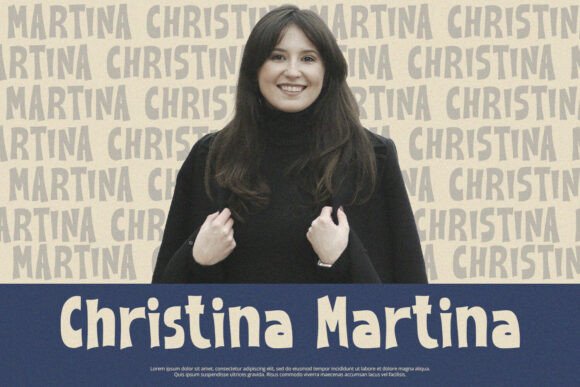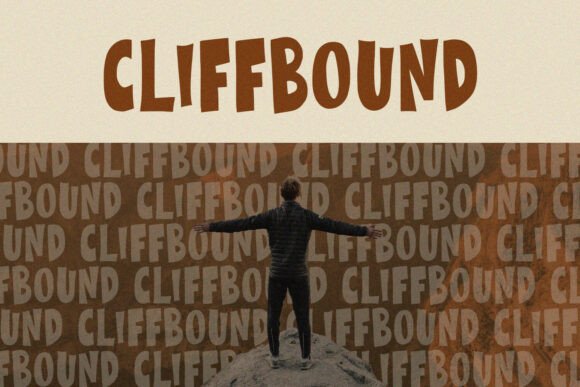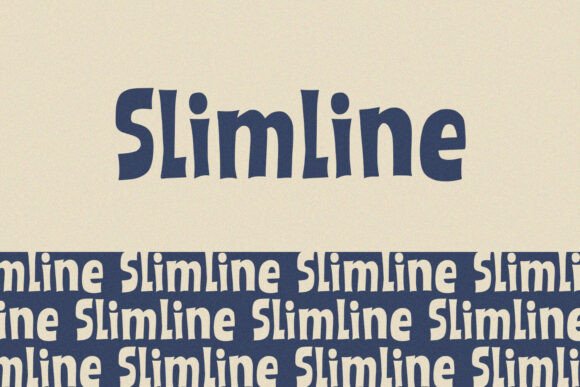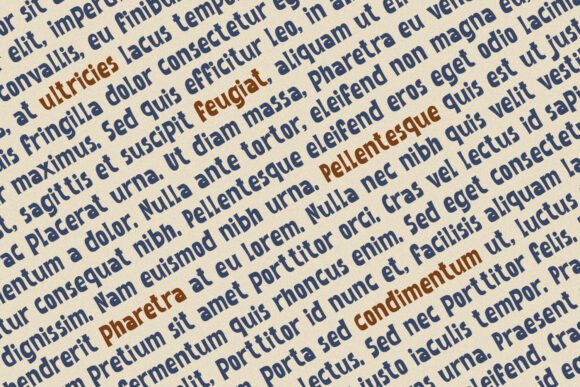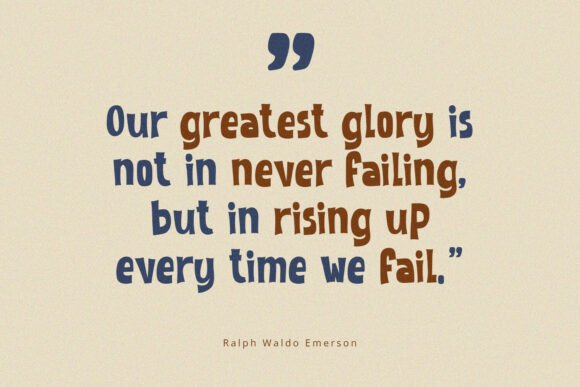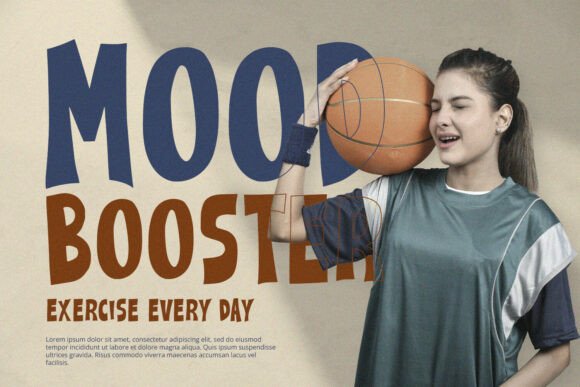
Burnout Paradise Font: The Ultimate Display Font for Creative Projects
Are you a designer or crafter looking for a bold and playful font to elevate your creative projects? Look no further than the Burnout Paradise Font! This stunning display font is perfect for adding a touch of fun and whimsy to a wide range of design projects, from magazines and packaging to posters, shopping bags, and more.
What is Burnout Paradise Font?
Burnout Paradise Font is a bold display font that exudes a cute and playful feel. Its unique design makes it perfect for grabbing attention and adding a touch of personality to any design project. The font’s bold and chunky letters are sure to make a statement, while its playful curves and lines add a touch of whimsy and fun.
Characteristics of Burnout Paradise Font
So, what makes Burnout Paradise Font so special? Here are just a few of its key characteristics:
- Bold and playful: Burnout Paradise Font is a bold display font that’s perfect for making a statement.
- Cute and fun: The font’s playful curves and lines give it a cute and fun feel that’s perfect for a wide range of design projects.
- Highly versatile: Burnout Paradise Font can be used for everything from magazines and packaging to posters, shopping bags, and more.
- Easy to read: Despite its bold and playful design, Burnout Paradise Font is easy to read, even at smaller sizes.
Uses for Burnout Paradise Font
So, what can you use Burnout Paradise Font for? The possibilities are endless! Here are just a few ideas to get you started:
- Magazines and publications: Add a touch of fun and personality to your magazine or publication with Burnout Paradise Font.
- Packaging design: Use Burnout Paradise Font to add a playful touch to your product packaging.
- Posters and flyers: Create eye-catching posters and flyers with Burnout Paradise Font.
- Shopping bags: Add a touch of personality to your shopping bags with Burnout Paradise Font.
- T-shirts and apparel: Use Burnout Paradise Font to create fun and playful designs for t-shirts and other apparel.
- Book covers: Add a touch of whimsy to your book covers with Burnout Paradise Font.
- Photography: Use Burnout Paradise Font to add a playful touch to your photography projects.
- Special events: Create custom designs for special events, such as weddings, parties, and more, with Burnout Paradise Font.
Tips for Using Burnout Paradise Font
Here are a few tips for getting the most out of Burnout Paradise Font:
- Use it boldly: Burnout Paradise Font is a bold display font, so don’t be afraid to use it boldly and make a statement.
- Experiment with colors: Burnout Paradise Font looks great in a wide range of colors, so don’t be afraid to experiment and find the perfect color for your design.
- Pair it with other fonts: Burnout Paradise Font pairs well with a wide range of other fonts, so feel free to get creative and experiment with different font combinations.